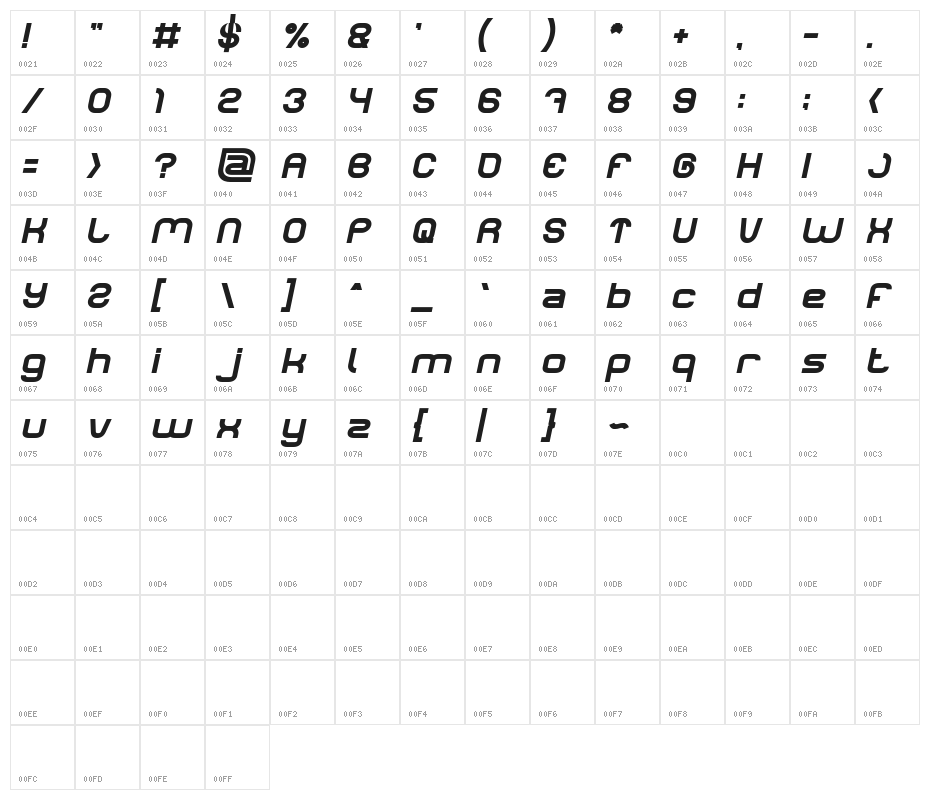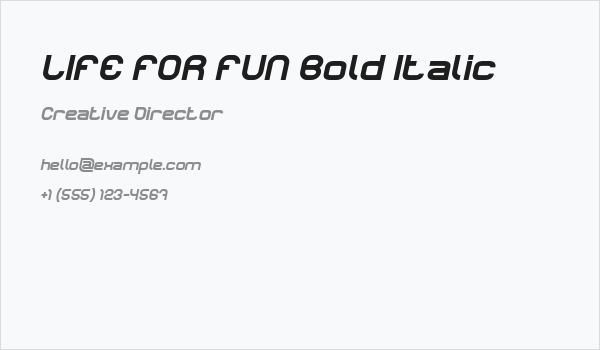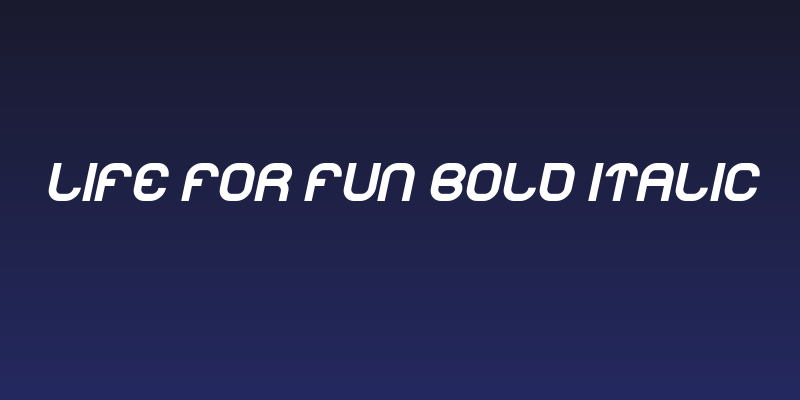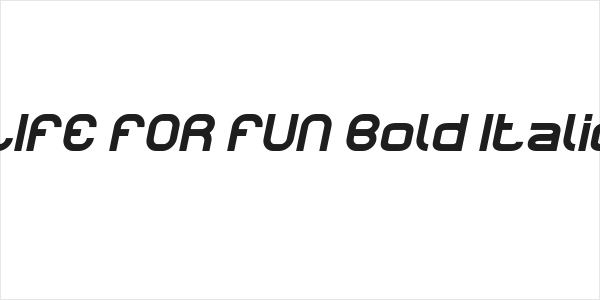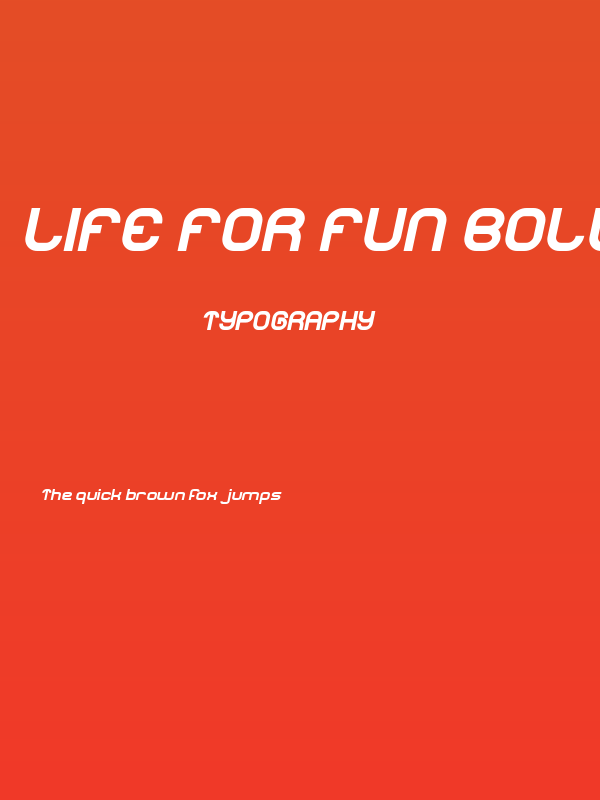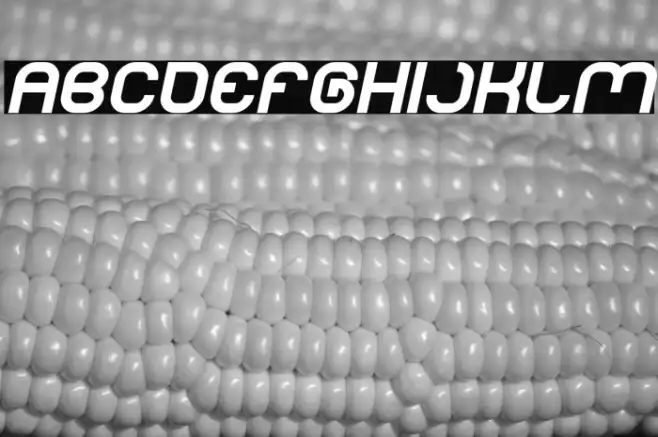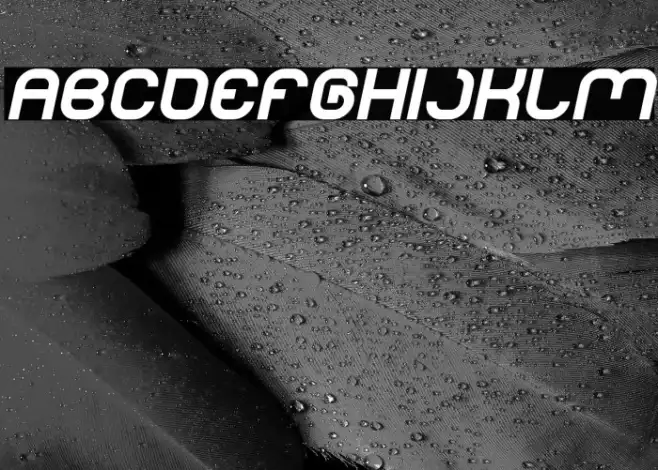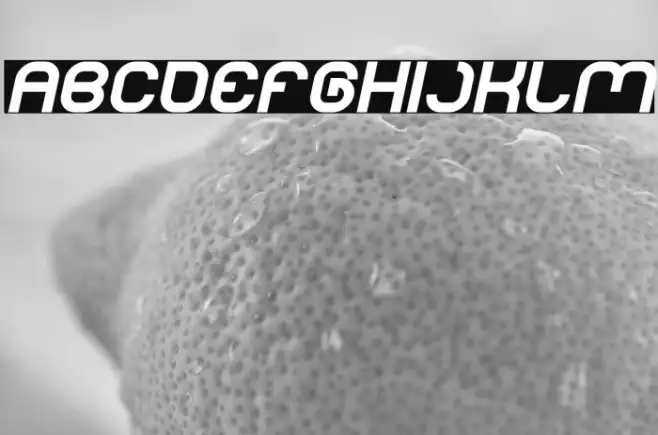
LIFE FOR FUN Bold Italic Font
LIFE FOR FUN Bold Italic Description
This font exhibits a bold and italicized style, characterized by its modern and sleek appearance. The letters are slightly slanted, giving a dynamic and energetic feel. The strokes are consistent in thickness, contributing to a uniform and cohesive look. The characters are well-spaced, ensuring readability while maintaining a compact form. The font includes a full set of uppercase and lowercase letters, numbers, and a variety of special characters, making it versatile for different design needs. Its contemporary design makes it suitable for projects that require a touch of modernity and flair.